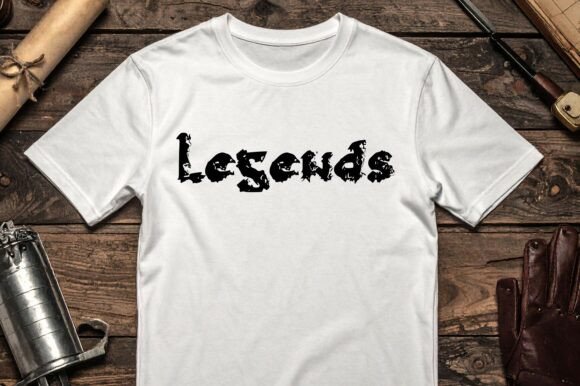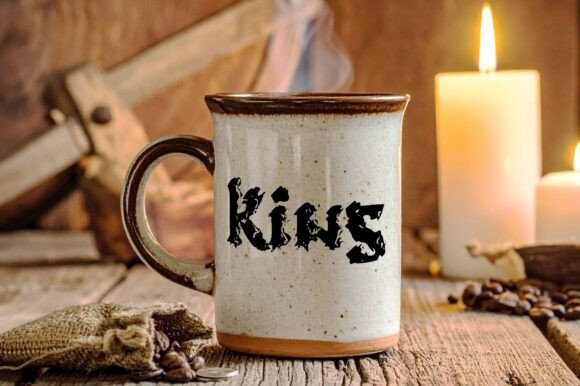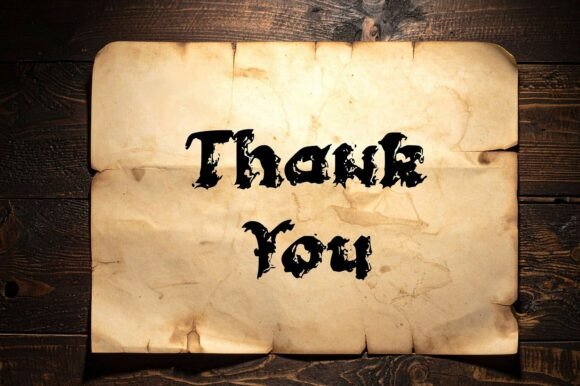
Unleash the Magic of the Celtic Dragon Font
Step into the enchanting realm of ancient Celtic lore and mythical dragon legends with the Celtic Dragon font. This captivating script font masterfully intertwines the mystique of the Celtic age with the timeless fascination of dragon mythology, transporting you to an era of legendary tales and medieval enchantment.
The Essence of Celtic Dragon Font
The Celtic Dragon font is a stunning example of typographic artistry, boasting potent strokes and robust letter shapes that evoke the sense of mystery, intensity, and adventure found in ancient Celtic tales. Inspired by the intricate Celtic spirals and formidable mythical creatures, this font beautifully echoes the signature artistry found in illuminated Celtic manuscripts and historic etchings.
Authenticity and Craftsmanship
Each alphabet in the Celtic Dragon font is a testament to the meticulous craftsmanship of a bygone era, standing tall in authenticity. The font’s design pays homage to the detailed artwork and symbolism characteristic of Celtic art, making it an excellent choice for designers and crafters seeking to infuse their projects with a sense of history and mysticism.
Versatility and Creative Applications
The beauty of the Celtic Dragon font lies in its versatility and encompassing nature, allowing it to effortlessly mark its presence in a variety of creative avenues. Whether you’re involved in the fantasy gaming world, looking to weave magic with intriguing book titles, or aiming to make a bold statement with your brand identity, this font offers endless possibilities.
Applications in Design and Crafting
- Fantasy Gaming: Bring your game worlds to life with titles and descriptions that resonate with the mystique of ancient legends.
- Book Titles and Covers: Add a touch of medieval magic to your book titles, making them stand out with an air of mystery and allure.
- Brand Identity: Create a bold and memorable brand presence with a font that echoes the strength and mystique of Celtic dragons.
- Stationery and Invitations: Elevate your stationery and invitations with a touch of ancient elegance and mysticism.
- Merchandise and Apparel: Design unique merchandise and apparel that captures the essence of Celtic mythology and dragon lore.
The Celtic Dragon font is a powerful tool for designers and crafters seeking to infuse their projects with the magic and mystique of ancient Celtic lore and dragon mythology. With its potent strokes, robust letter shapes, and authentic design, this font offers a wide range of creative possibilities. Whether you’re creating fantasy games, book titles, or brand identities, the Celtic Dragon font is sure to leave a lasting impression.